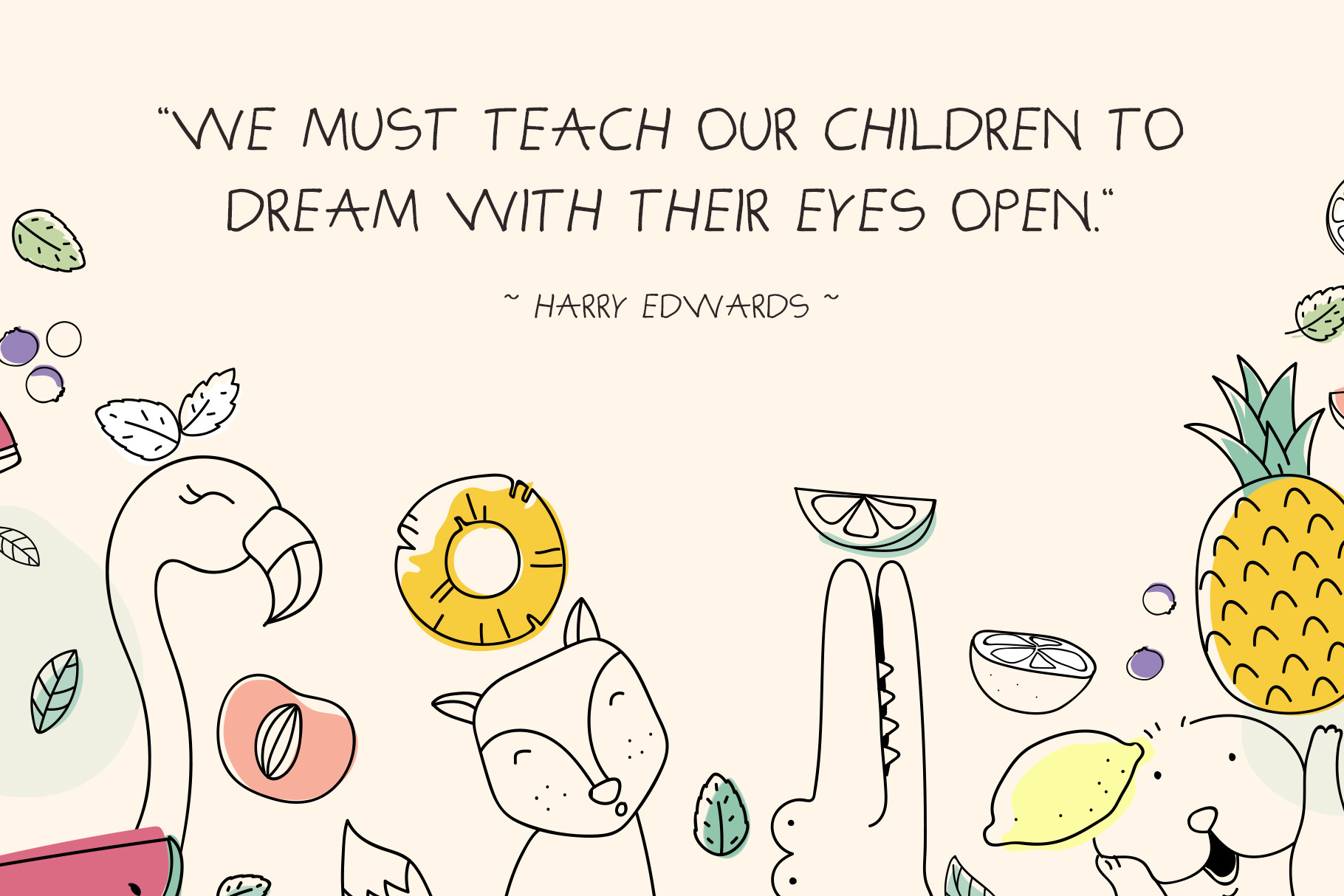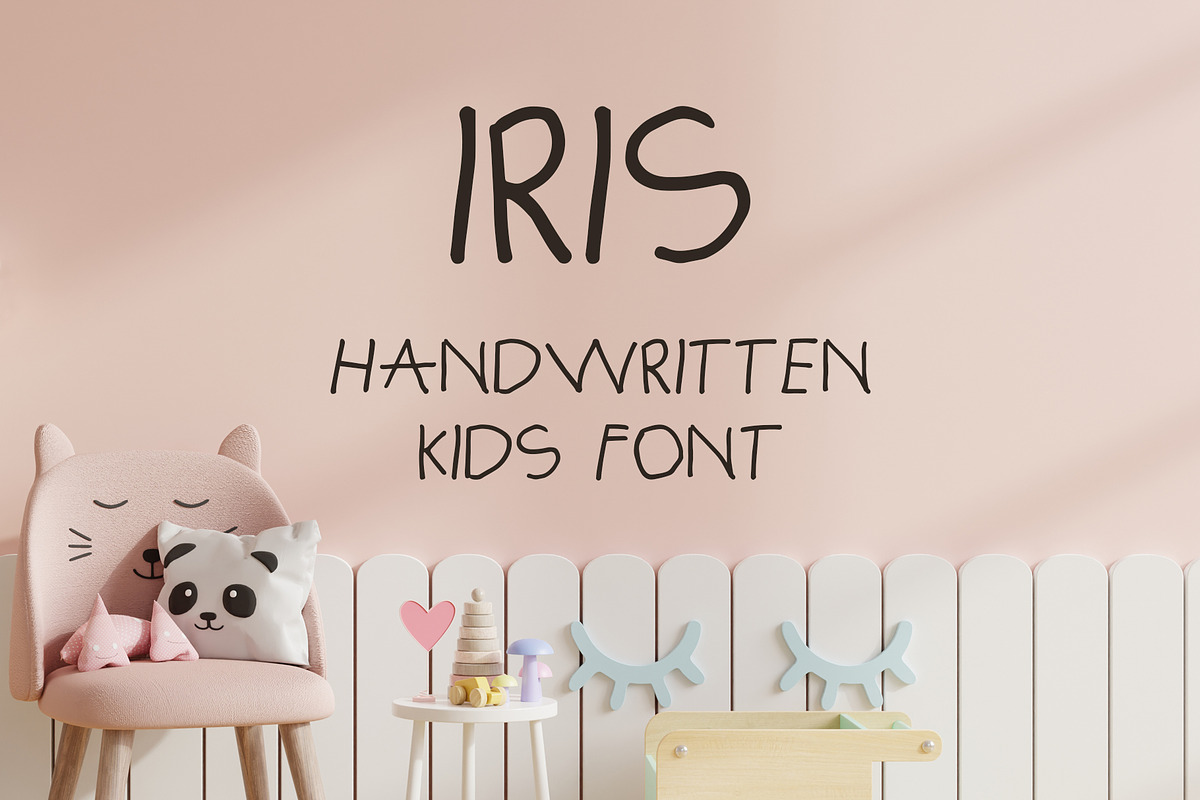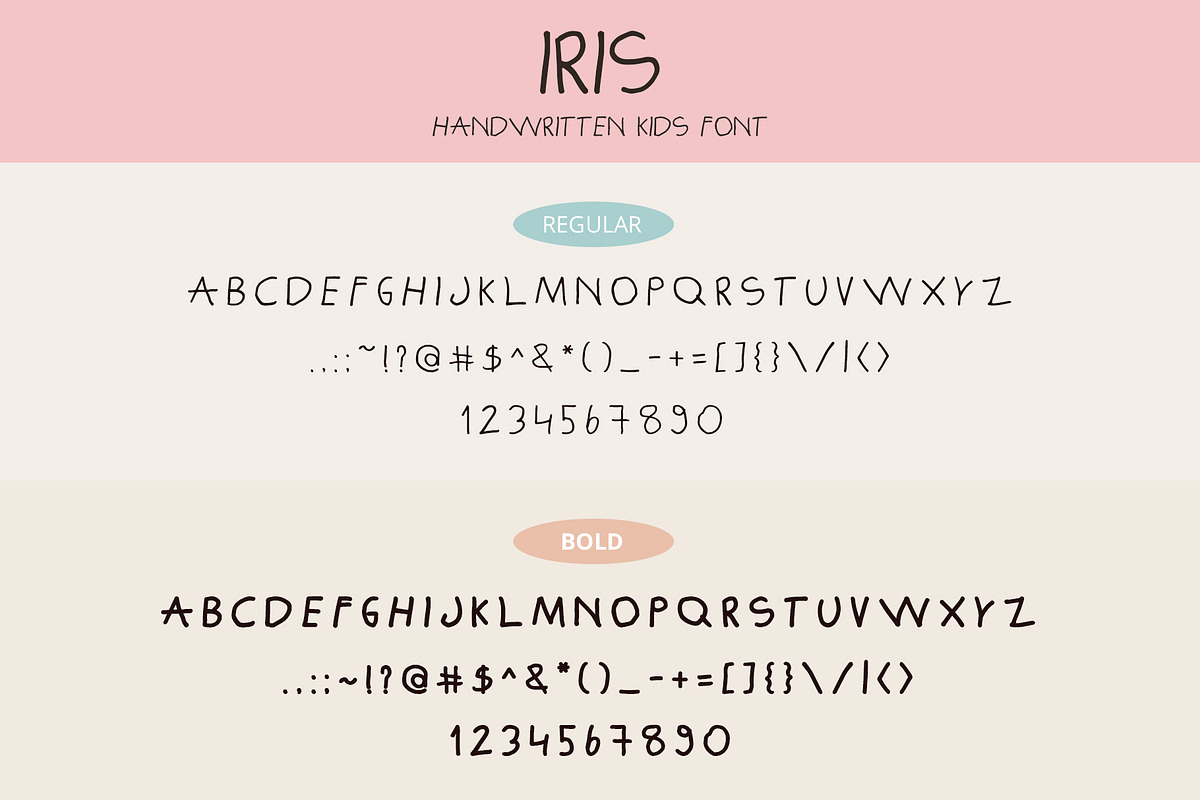
Iris - Kids Handwritten Font
Iris is a font created from a genuine writing of a 6 year old kid. You can use it on various promotional materials like flyers, brochures or posters for children events, on activity sheets for kids, on ads for children products or on the web.
The font contains all capital letters, numbers from 0 to 9 and the following symbols: `~!@#$%^&*()_+-=[]{}|;:'",./?